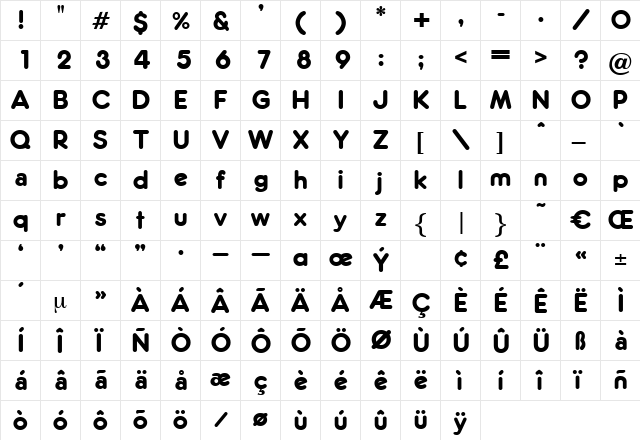
Allgemeine Regular
Design Context for Allgemeine Typeface
Allgemeine takes a measured approach to typography — its balanced proportions and neutral character make it a reliable workhorse for both digital and print work.